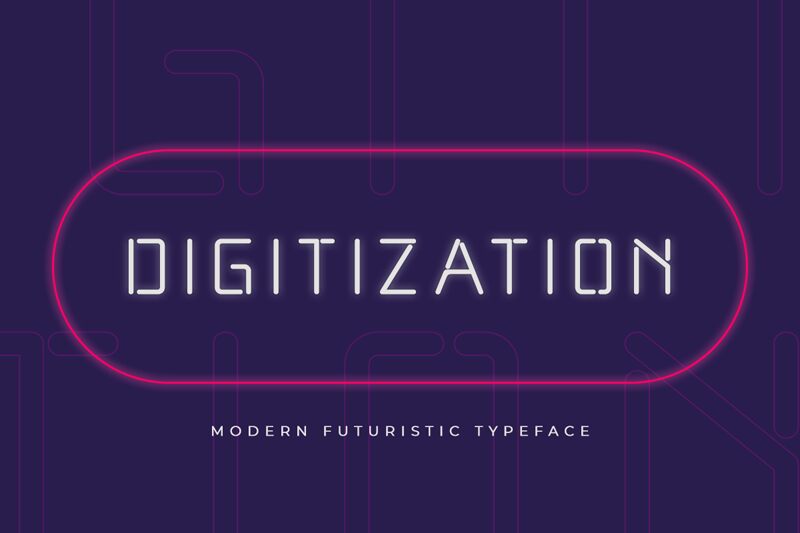
Digitization
Digitization font by Kong Font is a free techno display font with a futuristic feel. Its minimalist style and geometric formations are made more eye-catching with rounded edges. Use Digitization if you’re hoping to represent sleekness which is suitable for projects of different types.
Add it to posters, apps, comics, book covers, and video games. Try it out in t-shirts designs or edit wedding invitations or business cards. This font should also work well in advertisements for electronics, movies, beauty products, and all things fashion related.